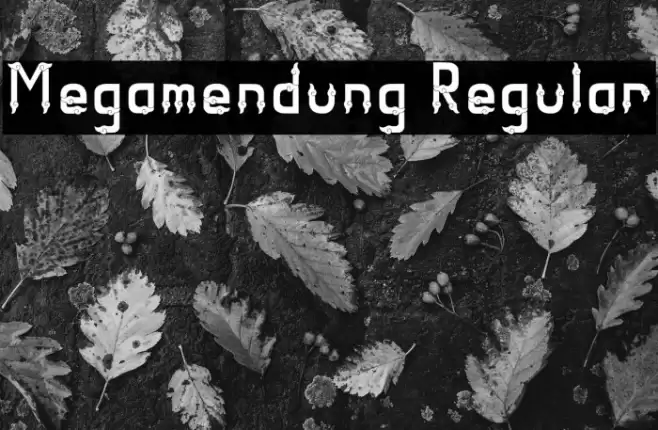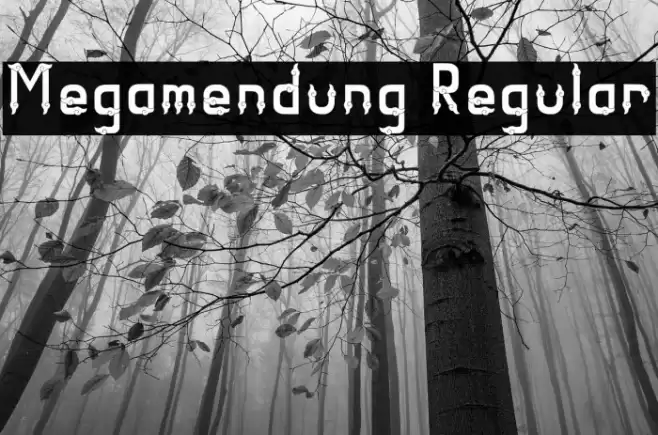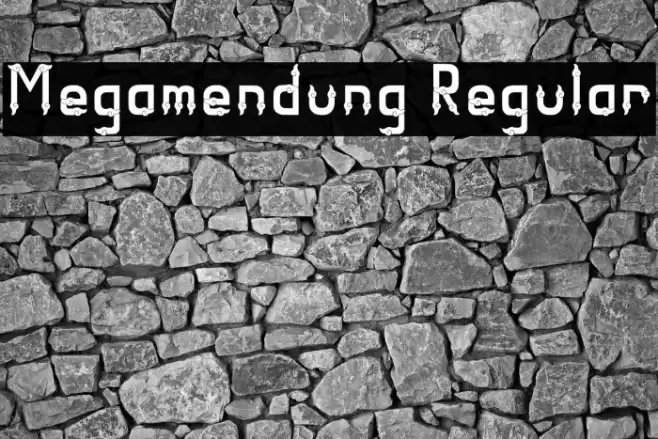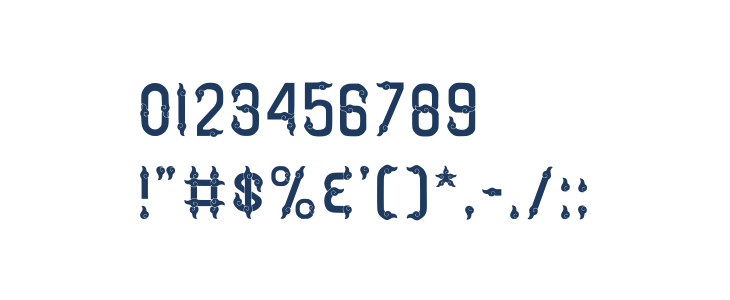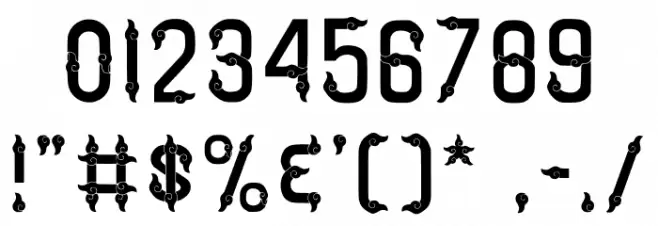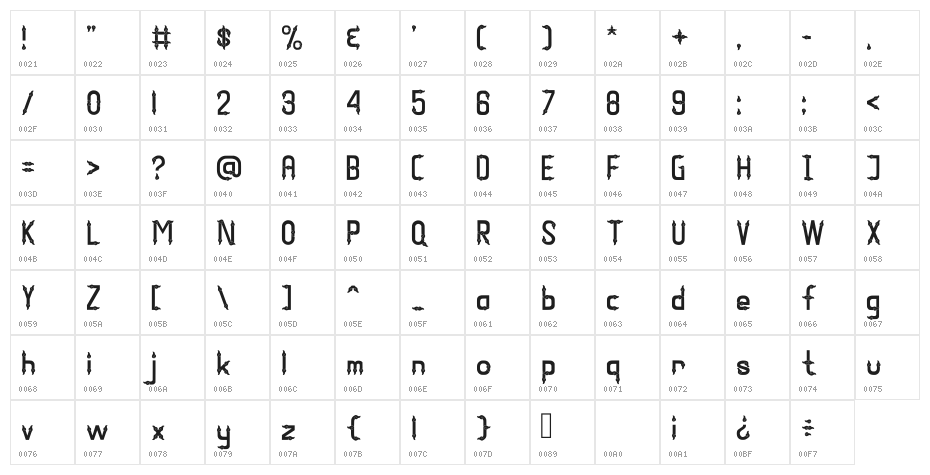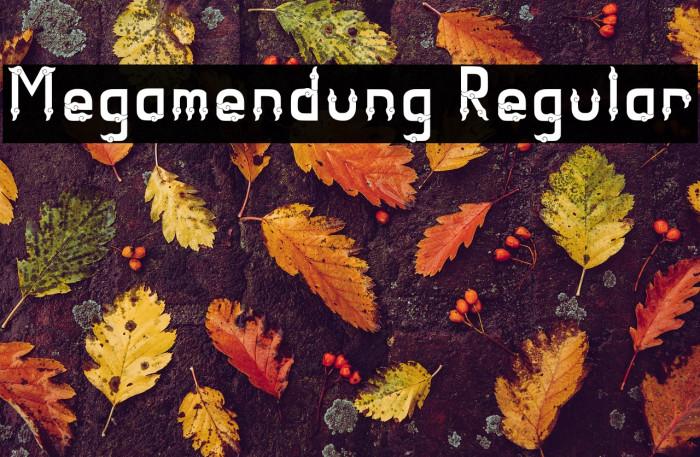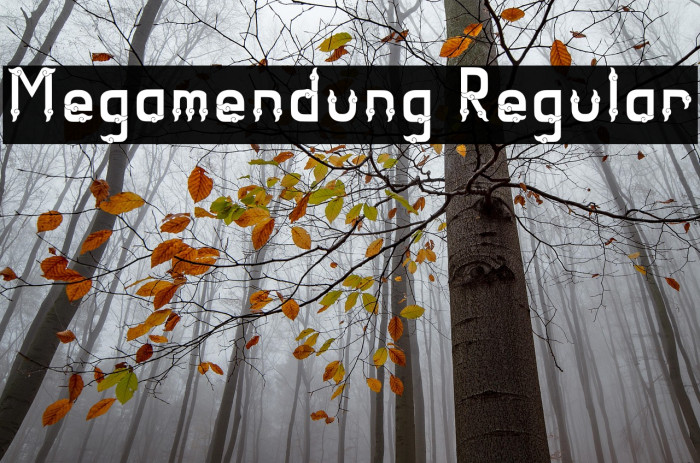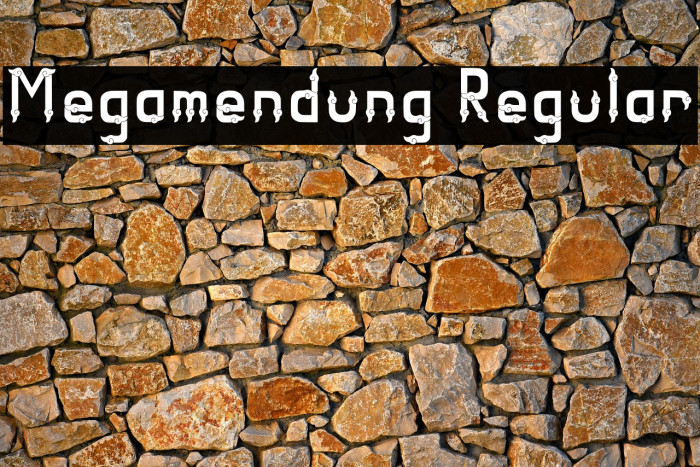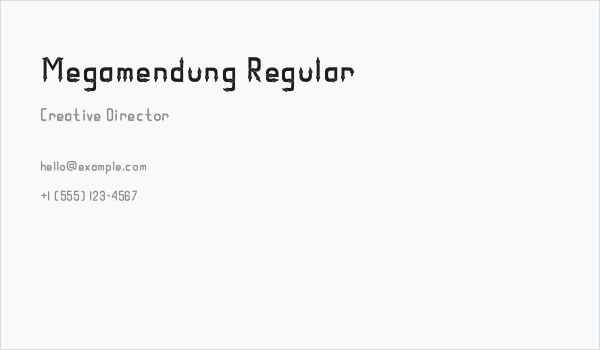
Megamendung Regular Font
This font features a unique and decorative style, characterized by intricate cloud-like embellishments on each character. The design draws inspiration from traditional patterns, giving it an artistic and cultural flair. The uppercase and lowercase letters maintain a consistent theme, with each character adorned with swirling motifs that add a touch of elegance and complexity. The numerals and special characters follow the same decorative approach, ensuring a cohesive look across all elements. This font's distinct appearance makes it suitable for projects that require a bold and artistic statement.
A decorative font with intricate cloud-like embellishments on each character from Regular fonts.
- Proposed Projects: Ideal for cultural or artistic projects, branding, posters, and invitations that require a unique and decorative touch.